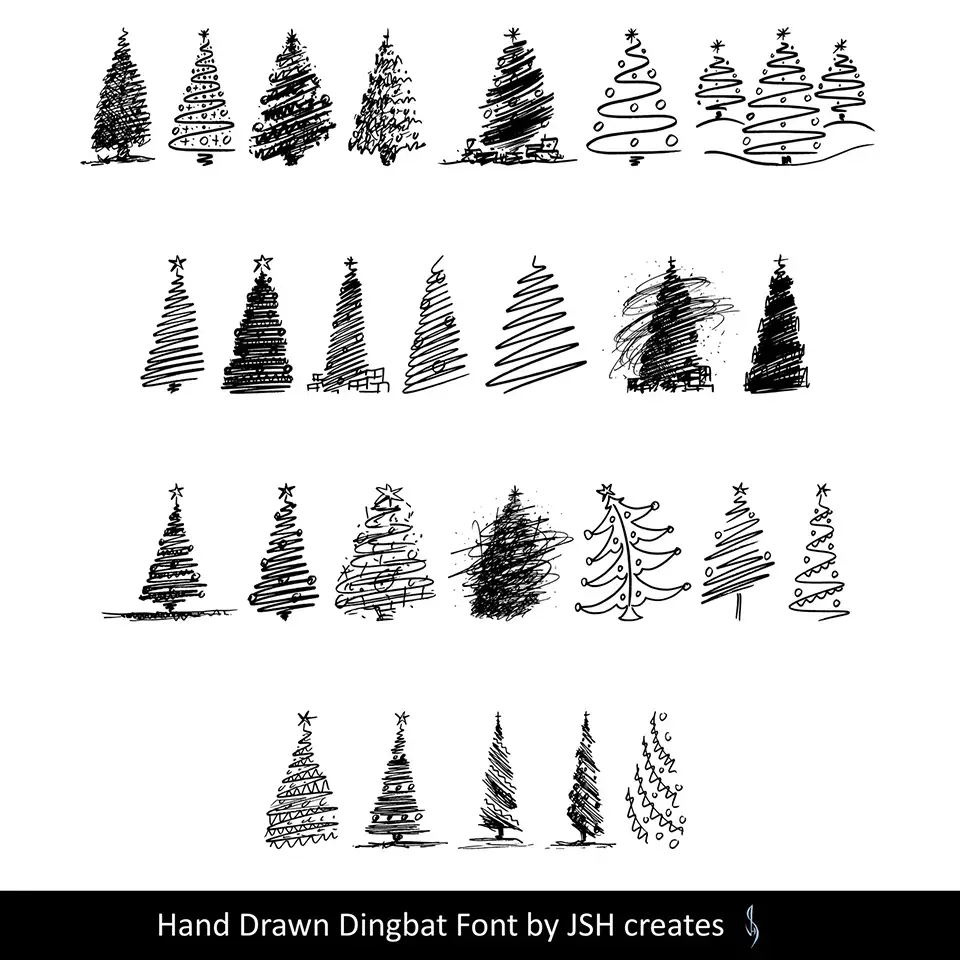
Merry Christmas Trees Font
Merry Christmas Trees is a delightful decorative display font featuring charming Christmas tree designs and festive symbols. Created by hand with artistic flair, this unique typeface transforms letters into festive imagery perfect for holiday greeting cards, invitations, seasonal banners, and festive promotional materials. With 191 glyphs offering diverse Christmas-themed characters and decorative elements, it brings joyful holiday spirit to creative typography projects. The font combines playful charm with distinctive visual appeal, making it an excellent choice for designs that celebrate the Christmas season.